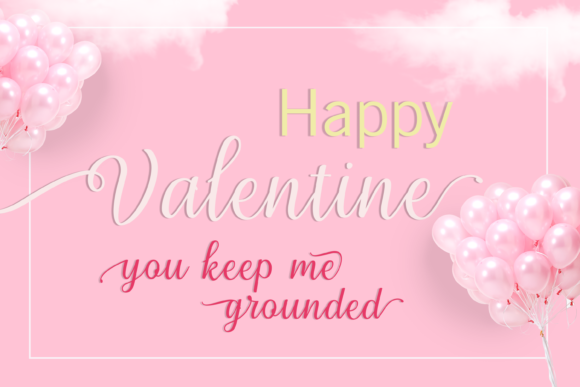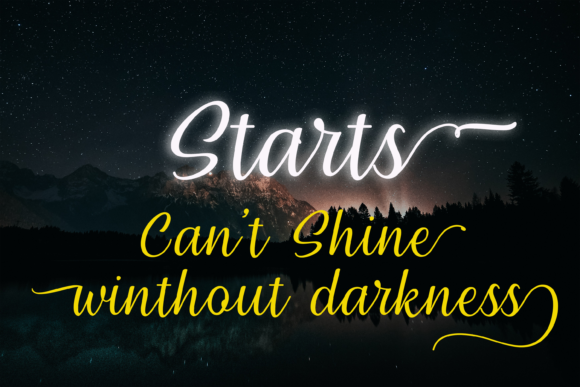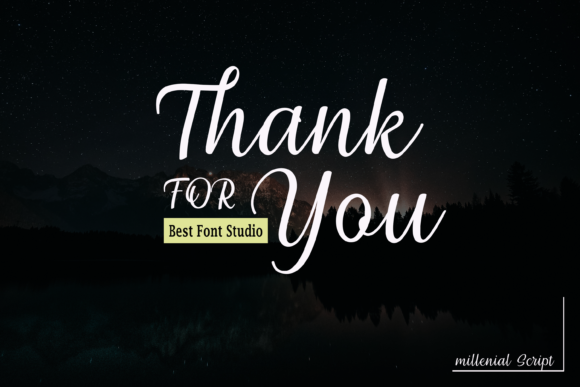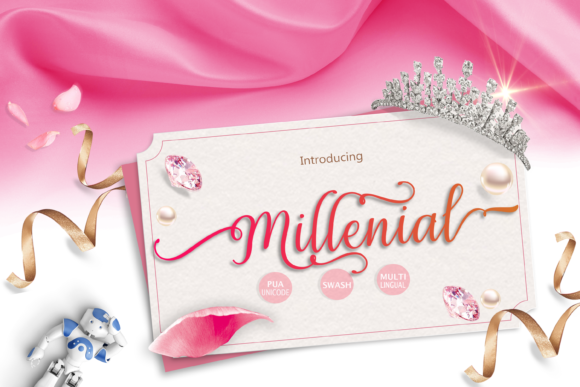
Millenial Script Font
About Millenial Script Font
The Millenial is a stylish, handwritten calligraphy script. It has an elegant and classic feel which makes it perfect for feminine designs.